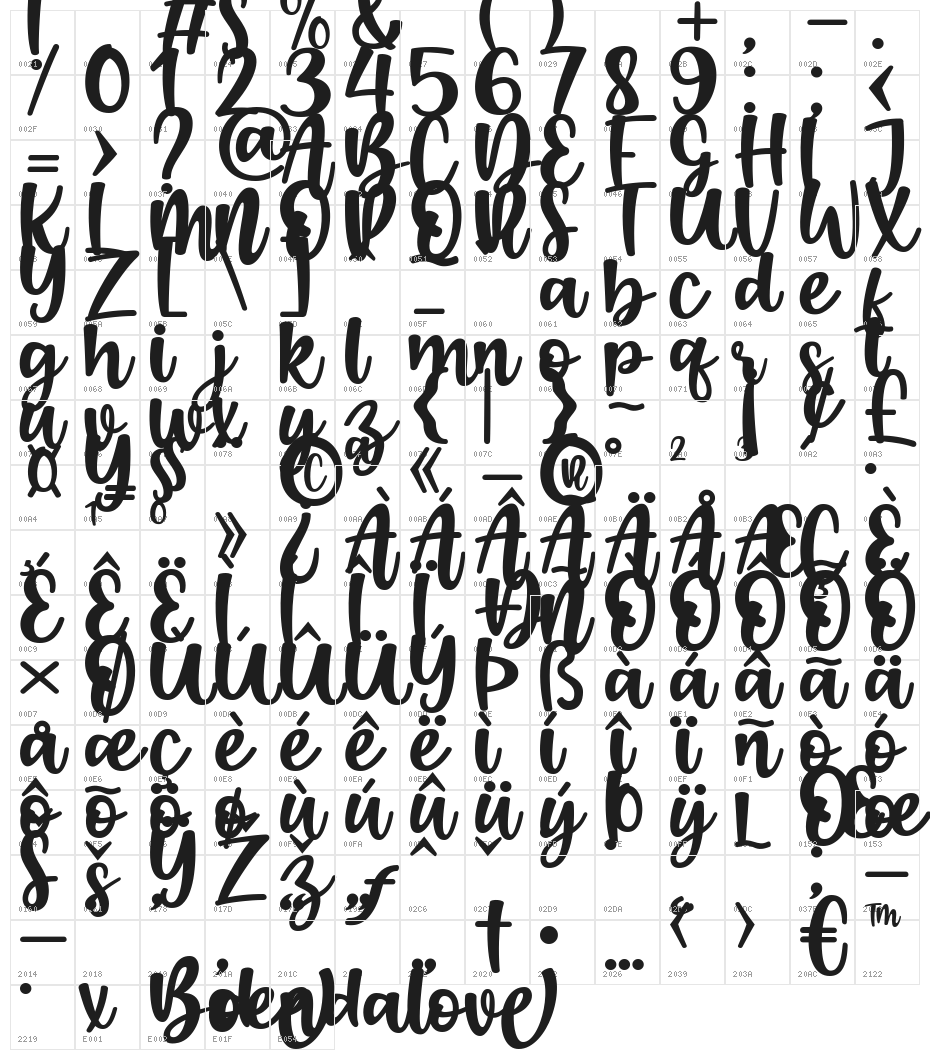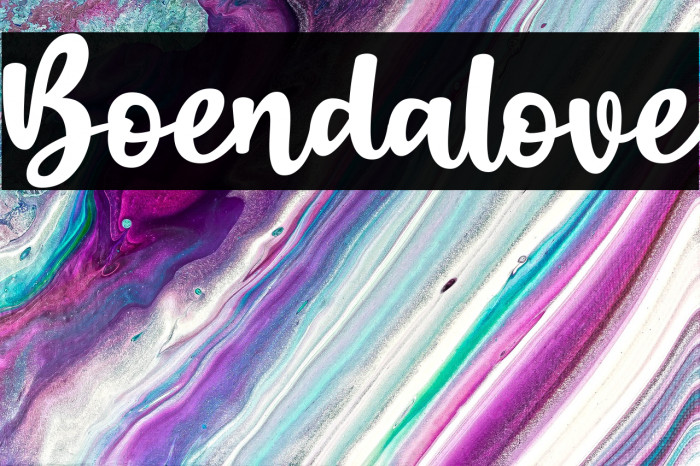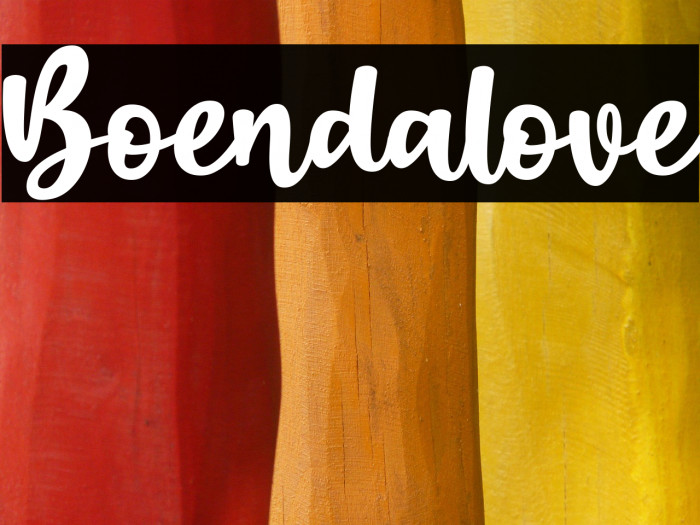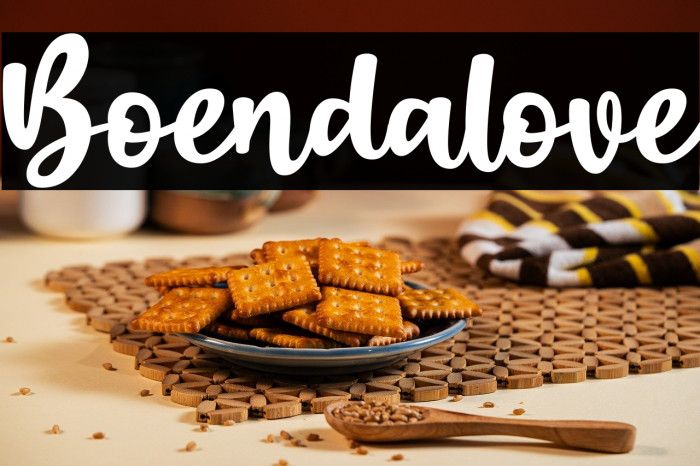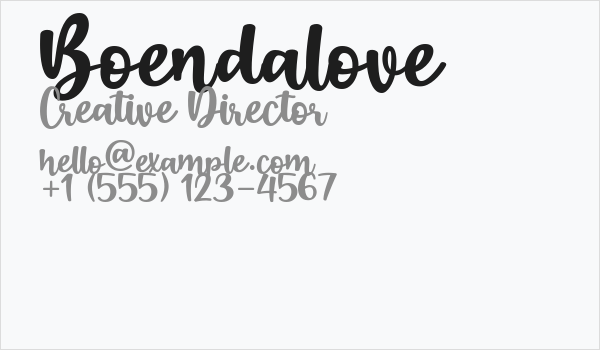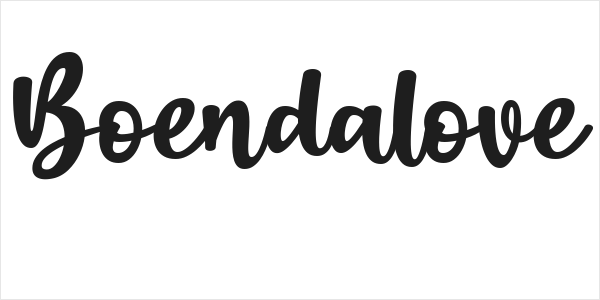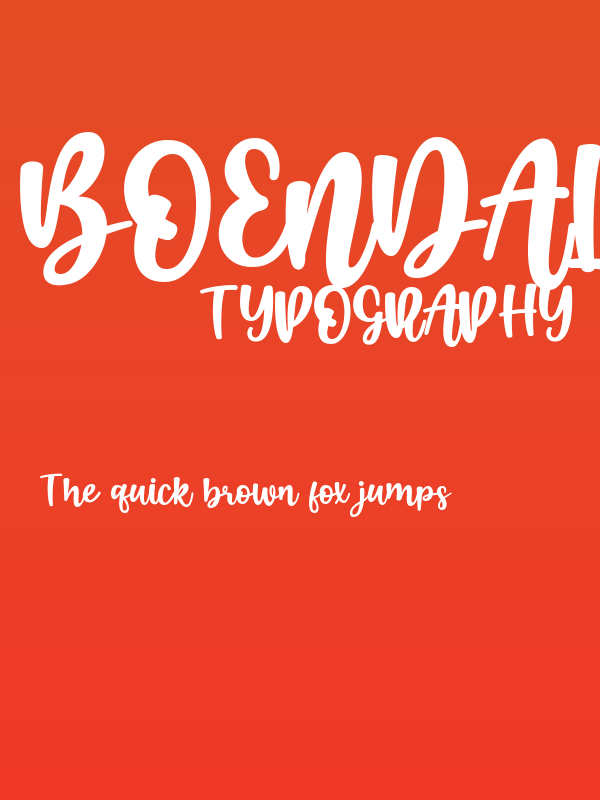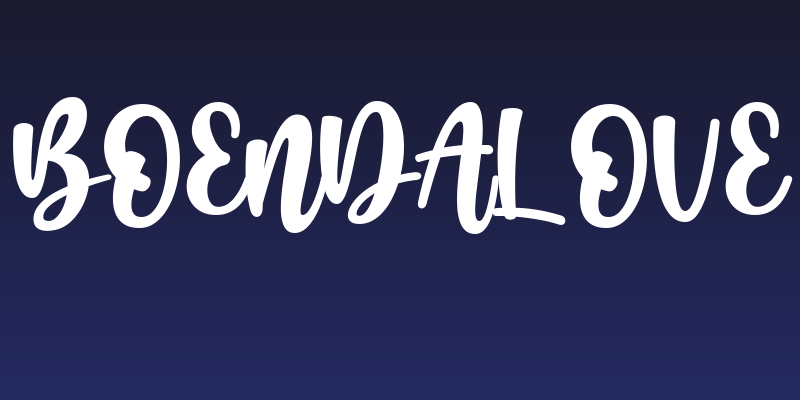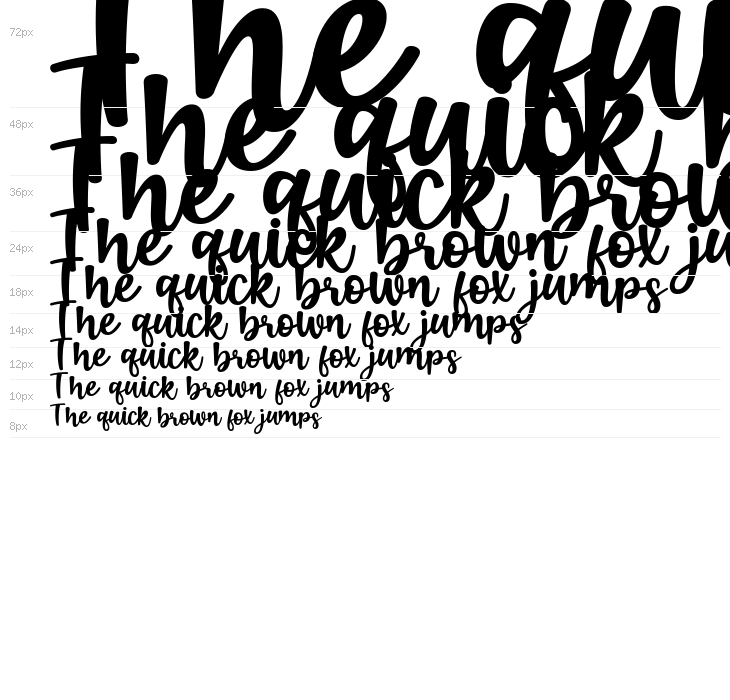
Boendalove Font
Boendalove Description
This font features a bold, flowing script style that exudes a sense of elegance and playfulness. The letters are interconnected, creating a seamless and fluid appearance. The uppercase characters are slightly more structured, while the lowercase letters have a more casual, handwritten feel. The numbers and special characters maintain the same playful and bold aesthetic, ensuring consistency across all elements. The thick strokes and rounded edges contribute to its friendly and approachable look, making it suitable for a variety of creative projects.
| Proposed Projects | Ideal for wedding invitations, greeting cards, branding projects, and social media graphics. |